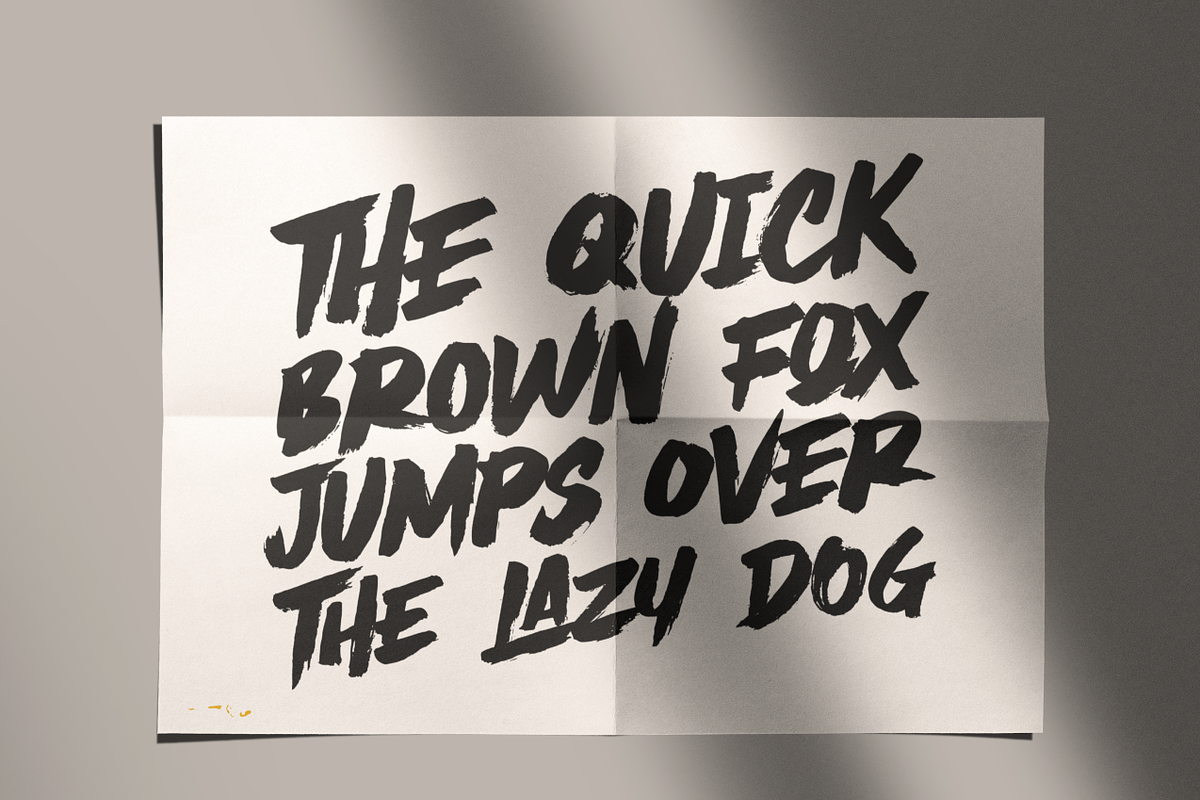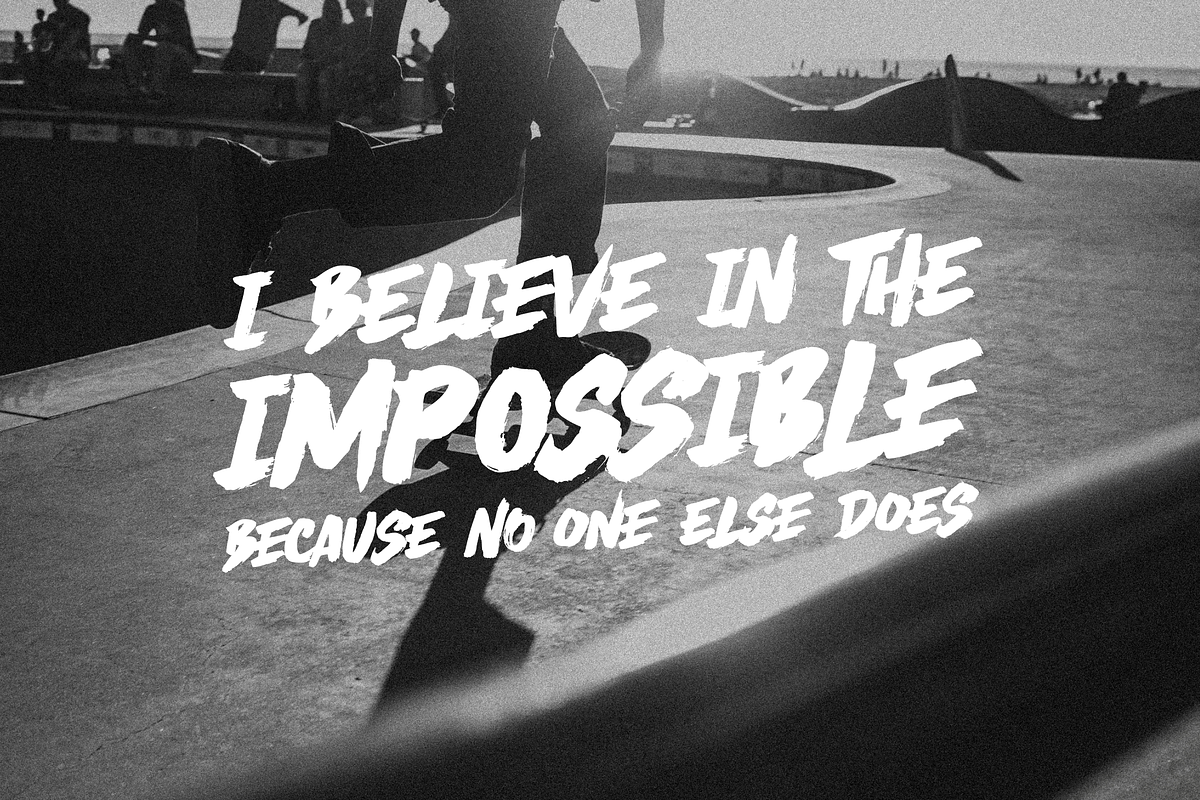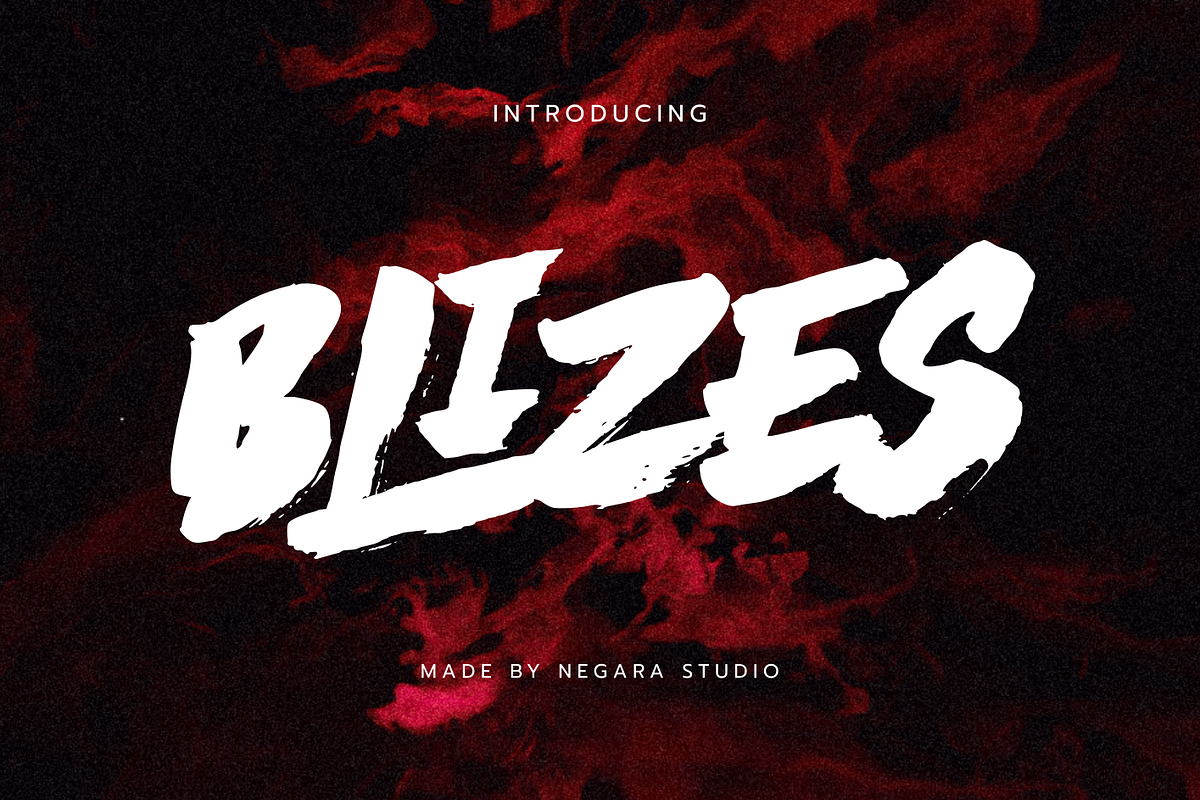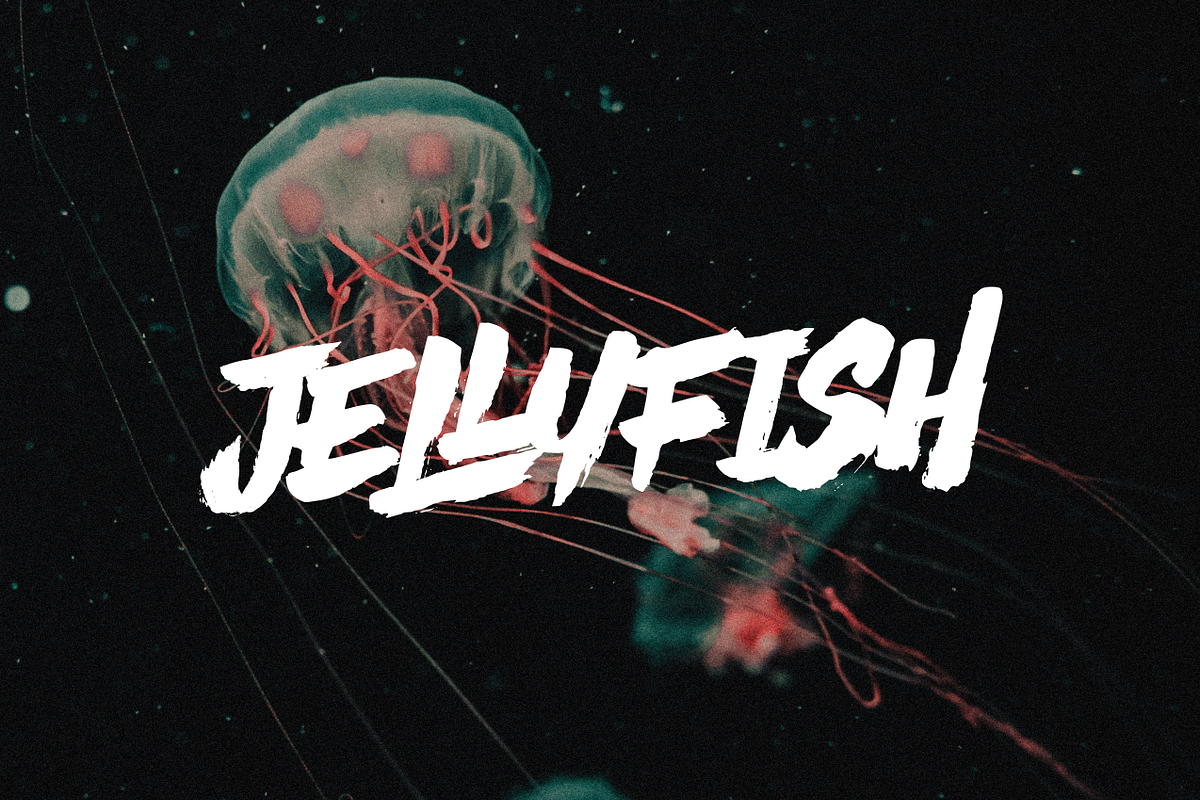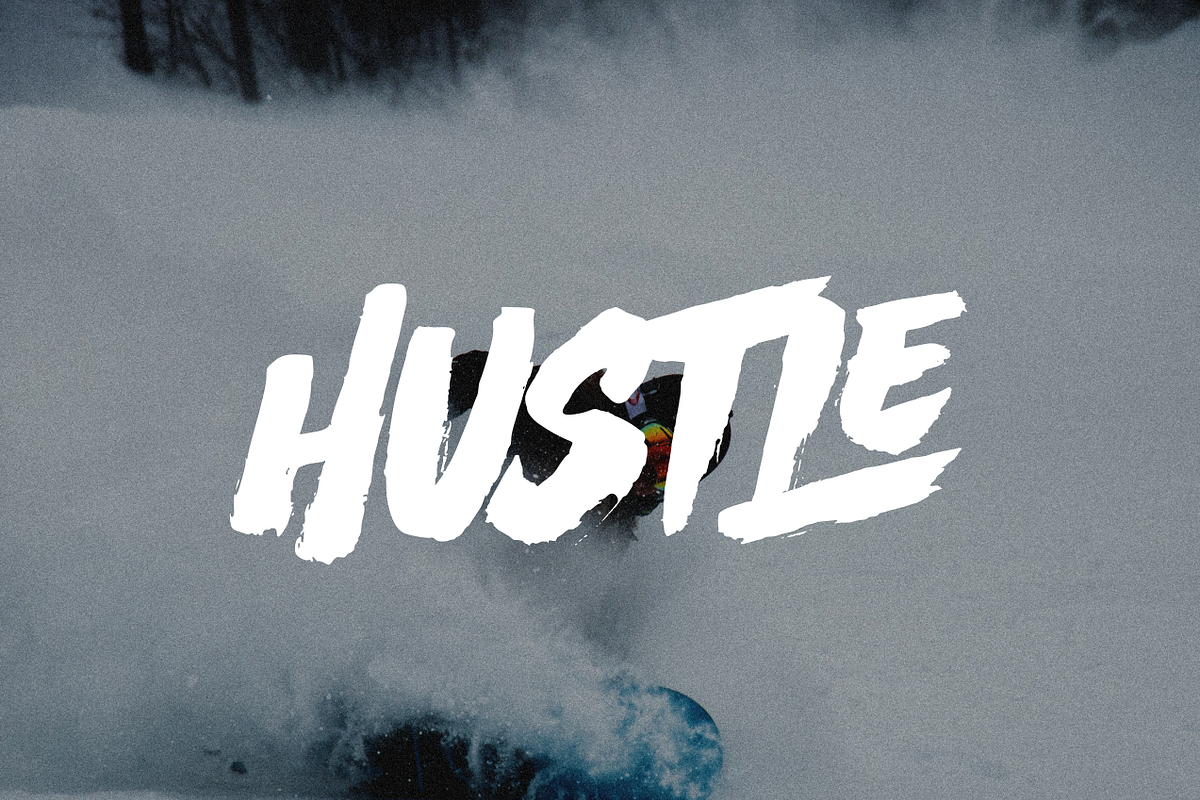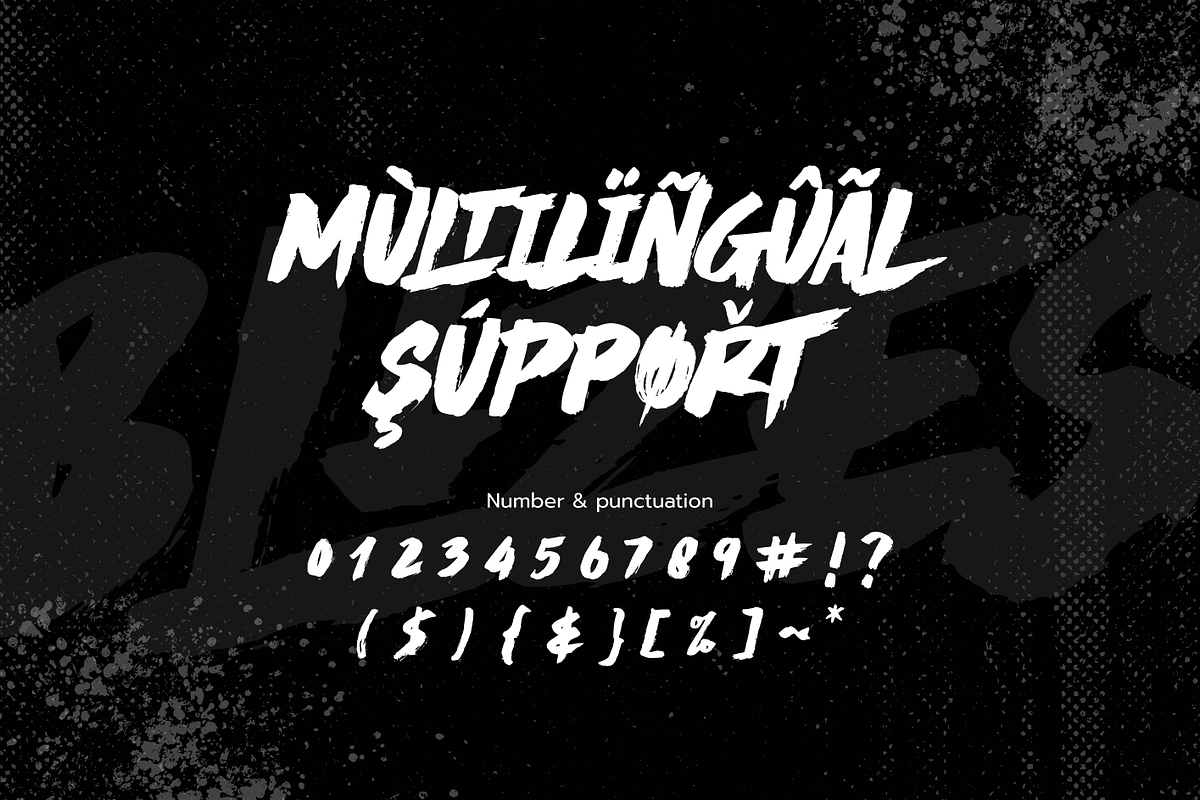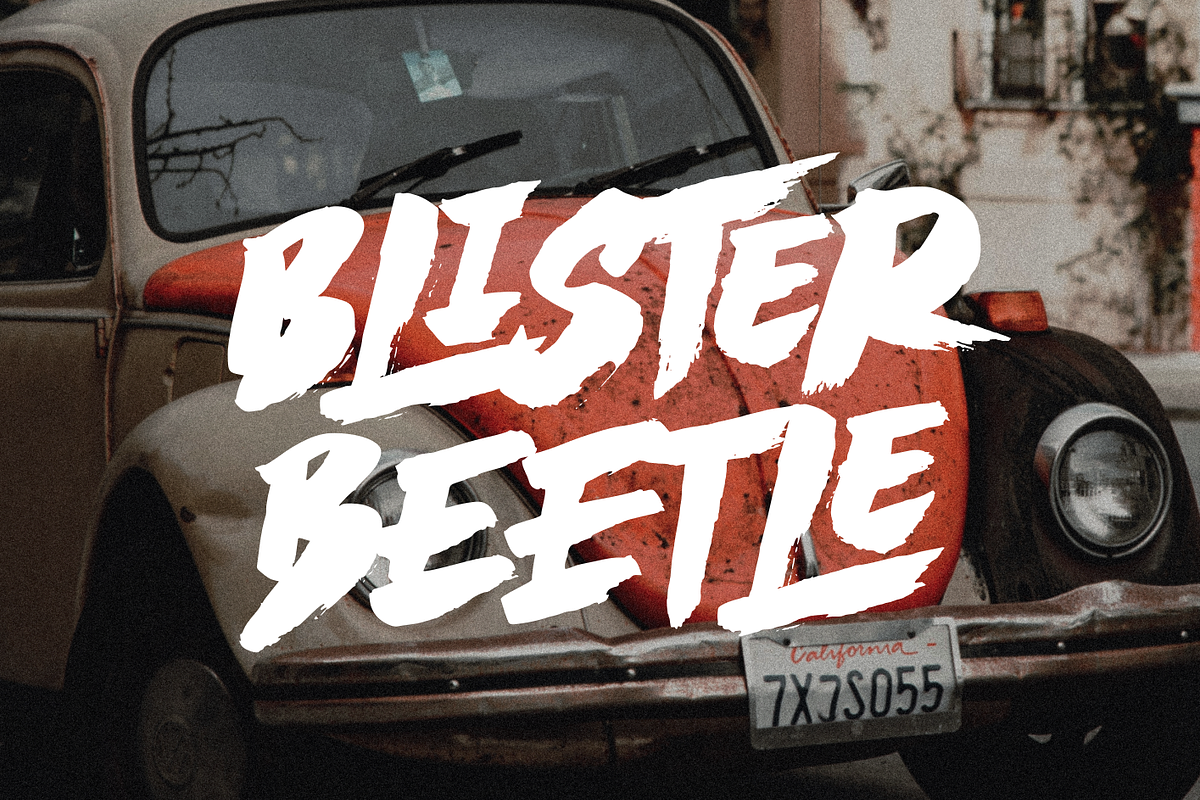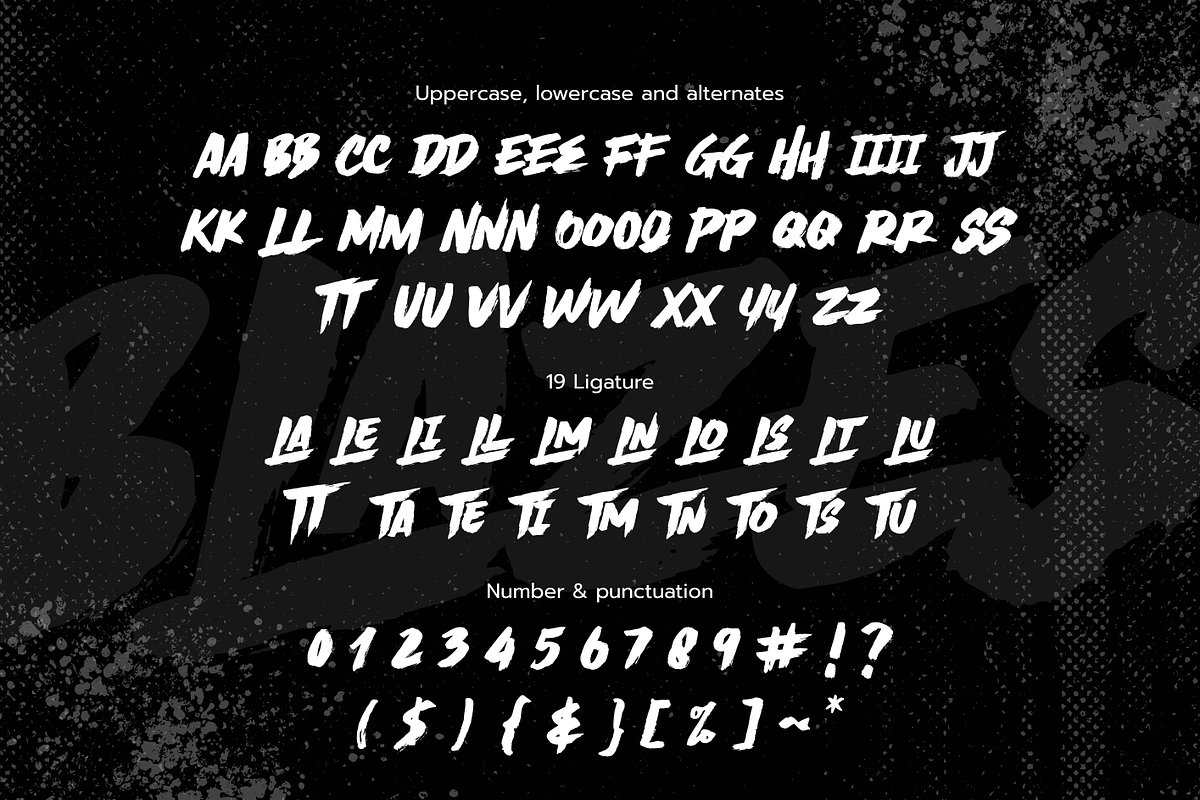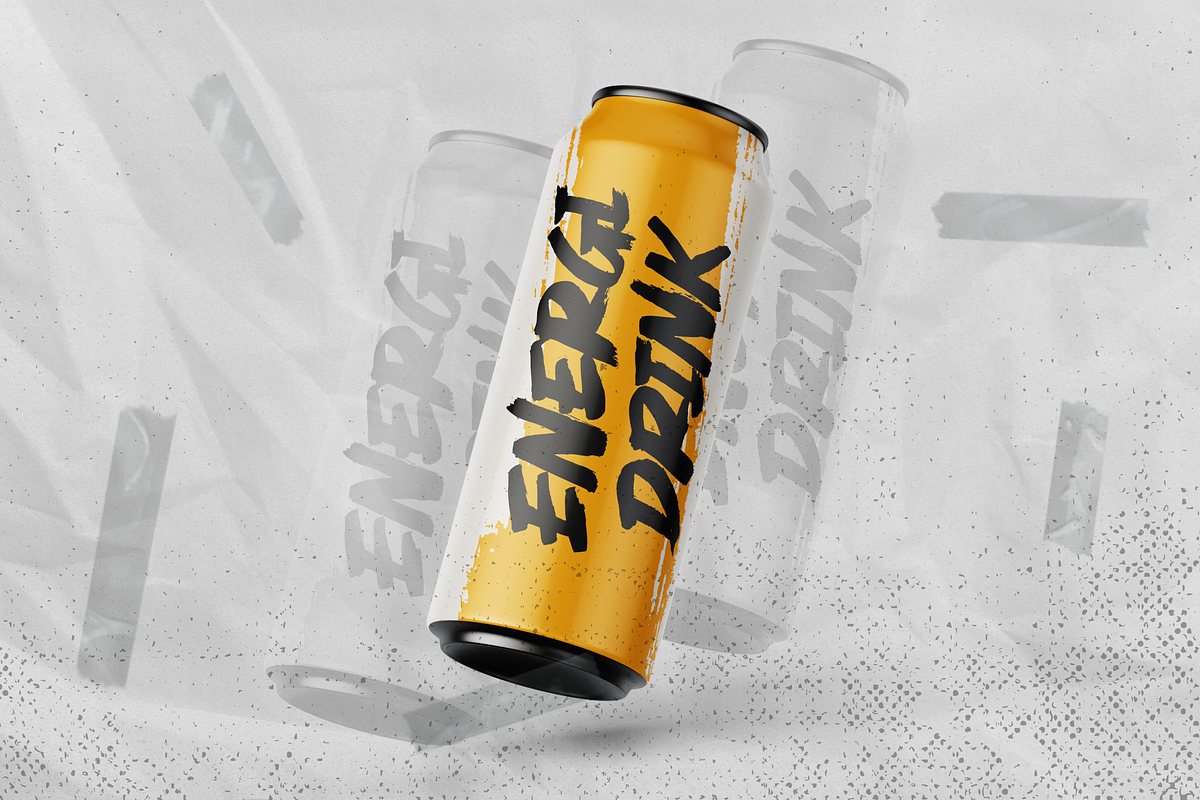
BLIZES Brush Font
Introducing BLIZES Typeface is a solid brush font written with a brush and slightly thick ink. written slowly so that it produces a solid brush. Then they are scanned and drawn one by one until they become vector format. BLIZES are perfect for branding project designs, Logo designs, product packaging, Quotes - or simply as a stylish text overlay on any background image
BLIZES Features:
Uppercase Lowercase Numeral Multilingual Support Punctuation I hope you love it.